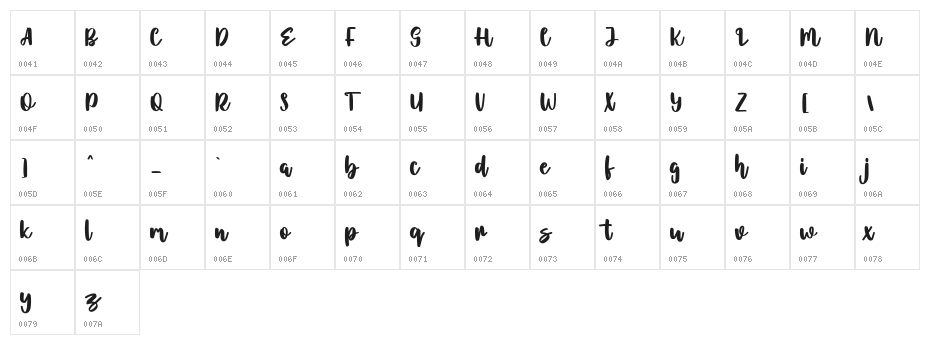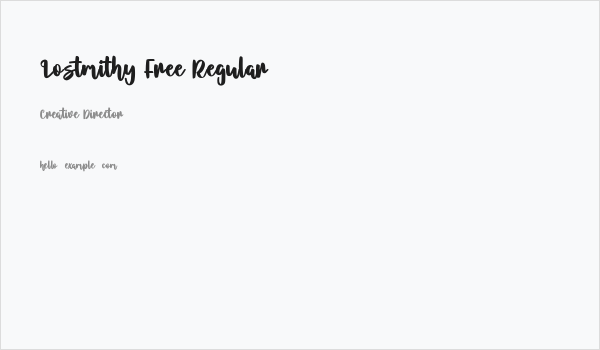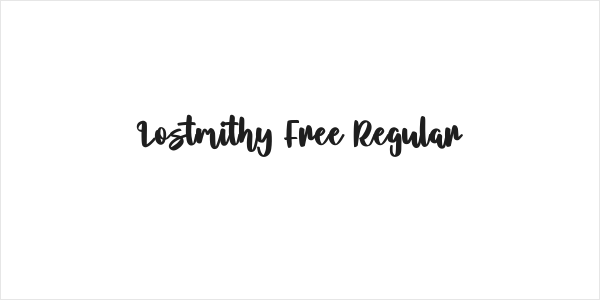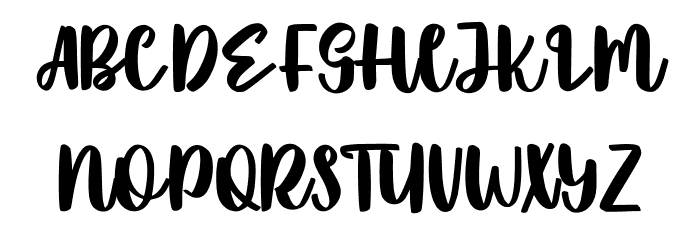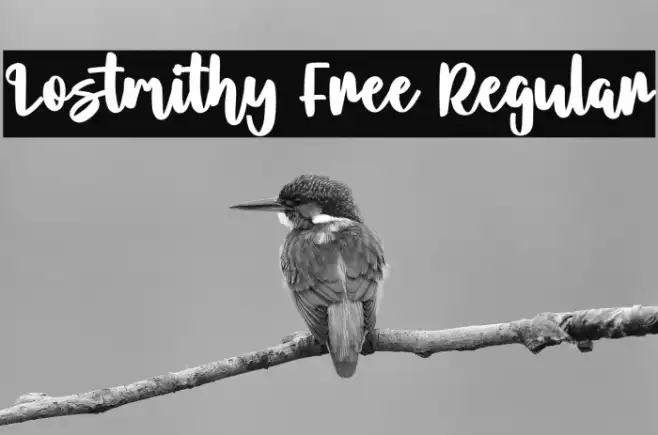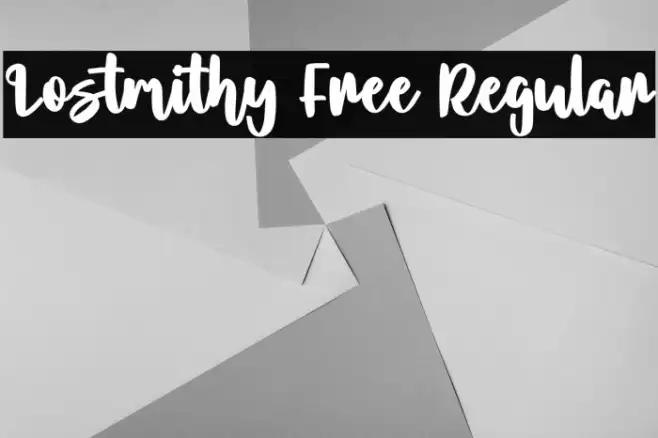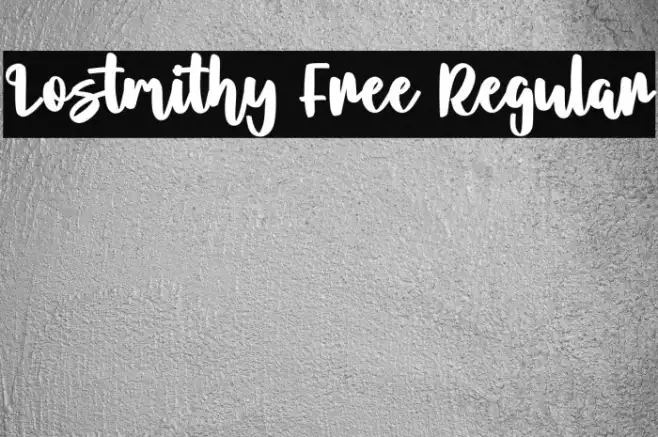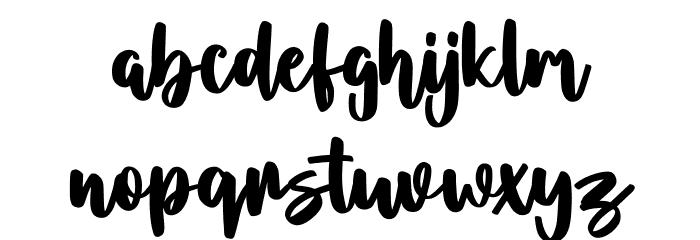
Lostmithy Free Regular Font
Lostmithy Free Regular Description
This font features a bold, flowing script style that exudes a sense of elegance and creativity. The characters are interconnected with smooth, rounded strokes, giving it a handwritten appearance. The uppercase letters are slightly larger and more pronounced, while the lowercase letters maintain a consistent flow. The numbers and special characters are designed to match the overall aesthetic, making them suitable for decorative purposes. The font's playful yet sophisticated style makes it versatile for various design projects.